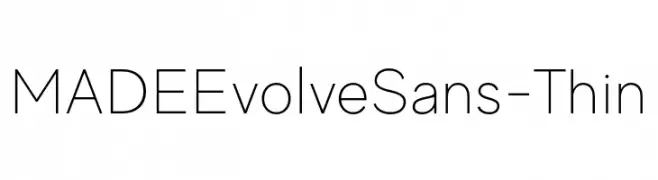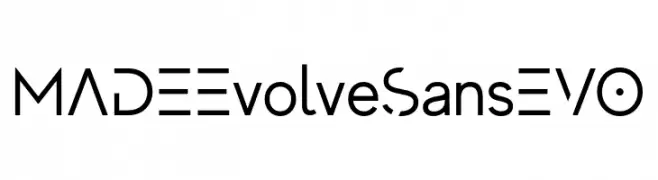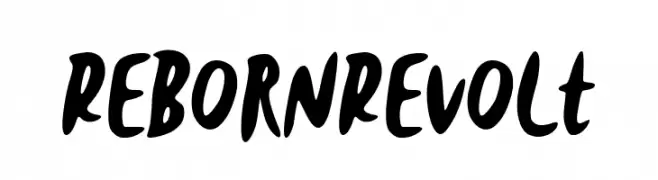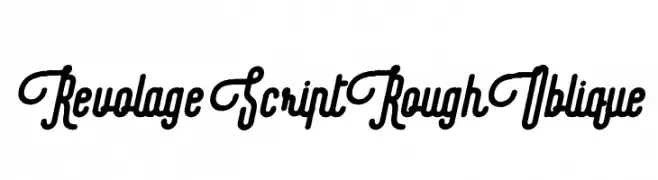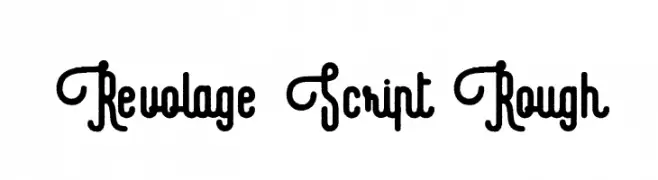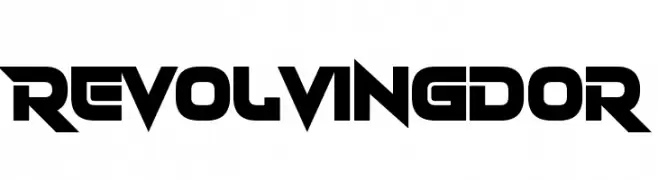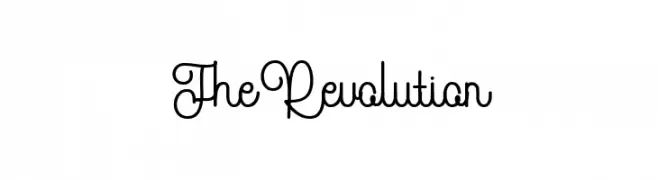
A modern, thin sans-serif font with a clean and minimalistic design.
A modern geometric sans-serif font with unique character cuts and a sleek design.
A bold, handwritten-style font with a dynamic and expressive appearance.
A bold, futuristic font with geometric shapes and sharp angles.
A bold, geometric font with a futuristic and dynamic style.
A bold, textured font with a rustic, handcrafted style.
A playful script font with looping, interconnected letterforms.
A bold, oblique script font with a rough, hand-drawn texture.
A playful, rough-textured script font with decorative loops and curves.
A bold, geometric font with a futuristic and angular design.